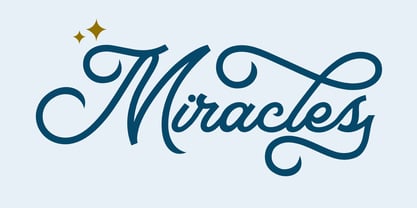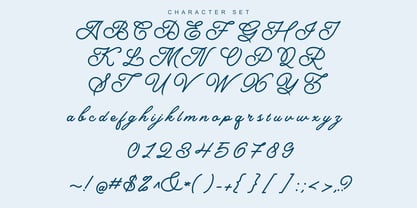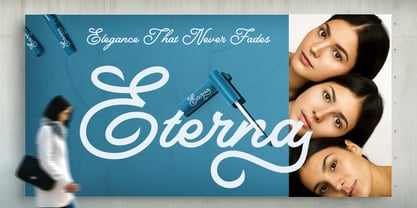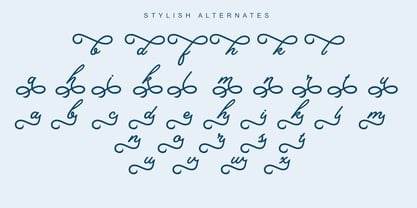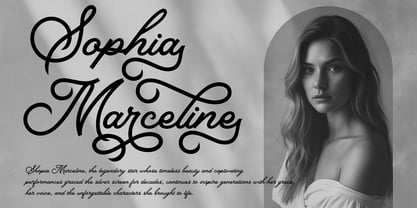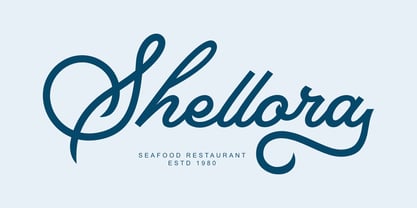
Bardeno
The Bardeno Font Family was designed by Saiful Anwar and published by Sealoung. Bardeno contains 1 styles. More about this family
Bardeno is a modern casual script font with an elegant touch, perfect for a wide range of creative projects such as crafting, branding, logos, invitations, stationery, wedding designs, social media posts, advertisements, product packaging, product designs, labels, posters, photography, special events, and more. With PUA encoding included, all special characters and decorative elements are easily accessible without additional software.